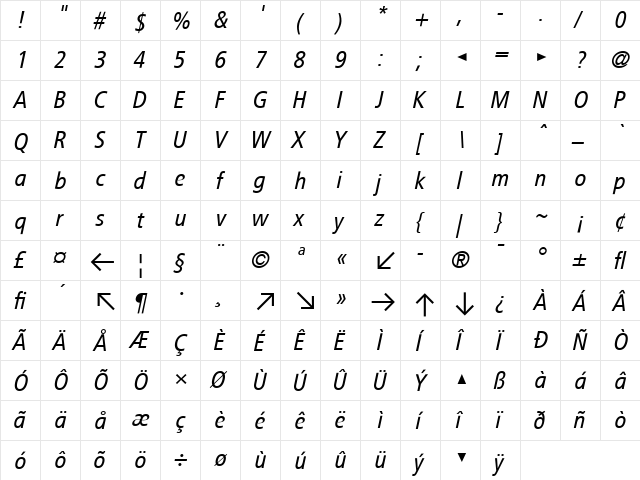
TransitBack Italic
Design Context for TransitBack Typeface
TransitBack is a composed and adaptable typeface that performs quietly and consistently across a wide range of design contexts. Its italic angle brings a sense of urgency and motion to the letterforms.
Pro Tip: Use TransitBack for emphasis, pull quotes, and subheadings where its slanted energy can add rhythm to the layout.